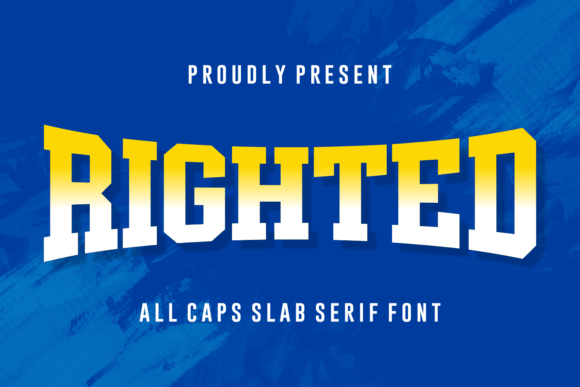
Introducing Righted Font: The Embodiment of Strength and Sophistication
In the world of typography, fonts play a crucial role in conveying messages, evoking emotions, and establishing brand identities. Among the myriad of typefaces available, the Righted font stands out as a bold and impactful choice, designed to exude strength, stability, and modern sophistication. This all-caps slab serif font is meticulously crafted to deliver a powerful visual impact, making it an ideal choice for various design projects, including headlines, branding, and signage.
The Design Philosophy Behind Righted
The Righted font is built on a foundation of bold, blocky characters with prominent serifs, which contribute to its robust and commanding presence. The all-caps format ensures uniformity and strength, while the slab serifs add a touch of sophistication and clarity. This thoughtful design approach enables Righted to communicate reliability and confidence, making it an excellent choice for brands and designers seeking to make a lasting impression.
Key Features of Righted Font
- All-Caps Format: The all-caps design of Righted ensures that every character has an equal presence, contributing to a sense of uniformity and strength.
- Slab Serifs: The prominent serifs add a touch of sophistication and clarity, making Righted suitable for both digital and print applications.
- Bold and Blocky Characters: The bold, blocky design of Righted characters ensures that the font stands out, even at smaller sizes.
- Modern Sophistication: The clean lines and geometric shapes of Righted give it a modern edge, making it perfect for contemporary design projects.
Applications of Righted Font
The versatility of Righted font makes it suitable for a wide range of design applications. Here are some of the most effective uses of this powerful typeface:
- Headlines and Titles: Righted’s bold and impactful design makes it an excellent choice for headlines and titles, where grabbing attention is crucial.
- Branding and Logo Design: The strength and stability conveyed by Righted make it an ideal choice for branding and logo design, particularly for companies seeking to establish a robust and reliable image.
- Signage and Advertising: The clarity and readability of Righted ensure that it is effective in signage and advertising, where messages need to be communicated quickly and clearly.
The Benefits of Using Righted Font
Choosing Righted font for your design projects offers several benefits, including:
- Improved Readability: The bold design and slab serifs of Righted enhance readability, making it easier for audiences to quickly grasp messages.
- Enhanced Brand Image: By conveying strength, stability, and sophistication, Righted can help elevate a brand’s image and establish a strong visual identity.
- Versatility: Righted’s design makes it suitable for various applications, from digital media to print materials.
Tips for Using Righted Font Effectively
To maximize the impact of Righted font in your design projects, consider the following tips:
- Pair with Complementary Fonts: When combining Righted with other fonts, choose typefaces that complement its bold and modern characteristics.
- Use for Emphasis: Utilize Righted for headlines and key messages to draw attention and emphasize important information.
- Consider Color and Contrast: Ensure that the color and contrast of Righted are optimized for the background and surrounding design elements to maintain readability and visual impact.
The Righted font is a powerful and sophisticated typeface designed to make a lasting impression. Its unique blend of strength, stability, and modern elegance makes it an excellent choice for a wide range of design applications. By incorporating Righted into your typography arsenal, you can elevate your designs, enhance brand image, and communicate messages with clarity and impact.
Frequently Asked Questions About Righted Font
- What is Righted font? Righted is an all-caps slab serif font known for its bold, blocky characters and modern sophistication.
- Who can benefit from using Righted font? Designers, brands, and businesses seeking to create a strong visual impact and convey reliability and confidence can benefit from using Righted font.
- Is Righted suitable for digital use? Yes, Righted’s clean design and slab serifs make it suitable for both digital and print applications.